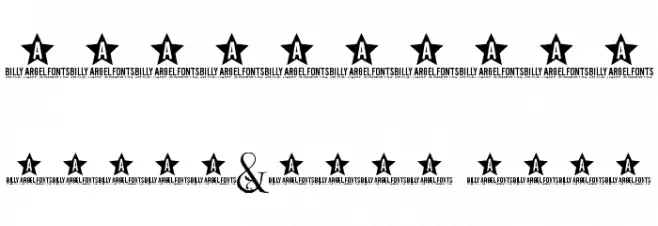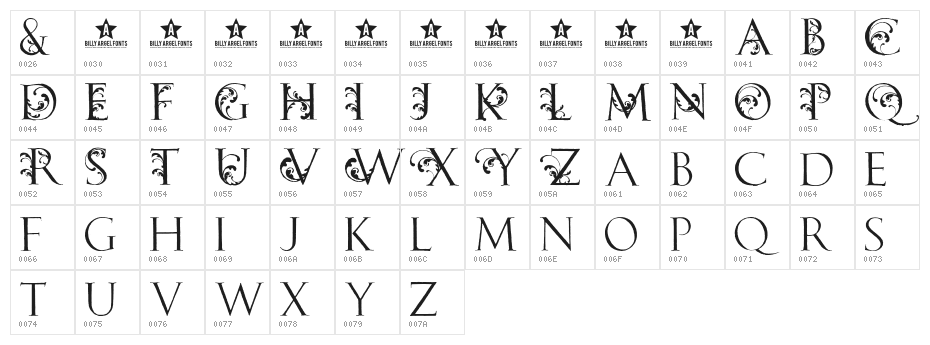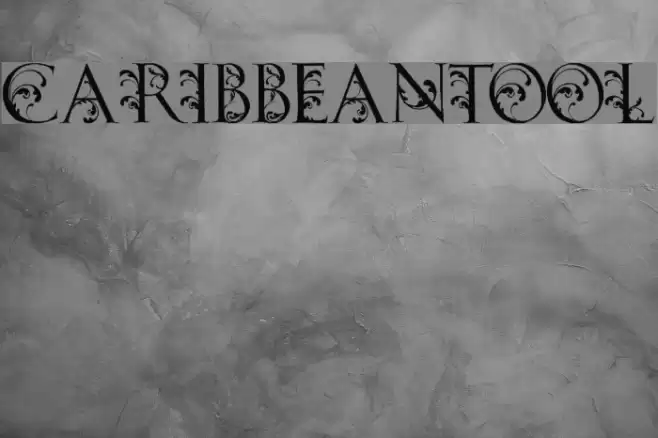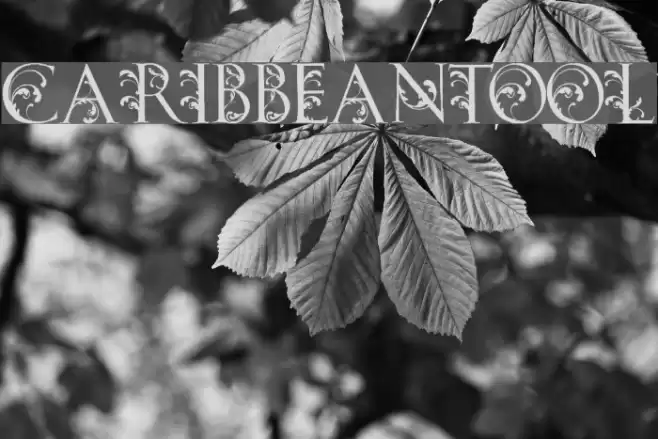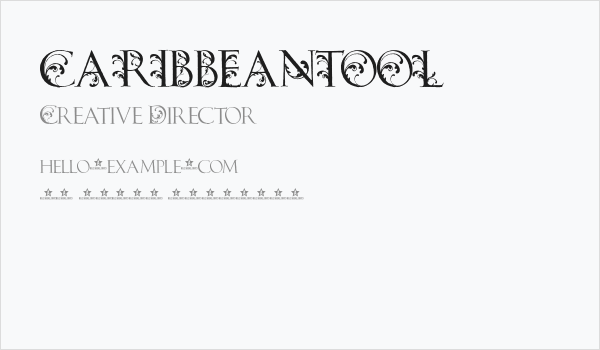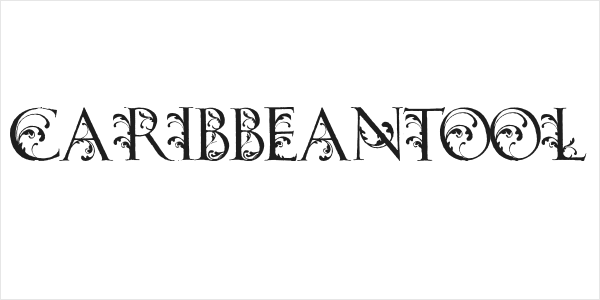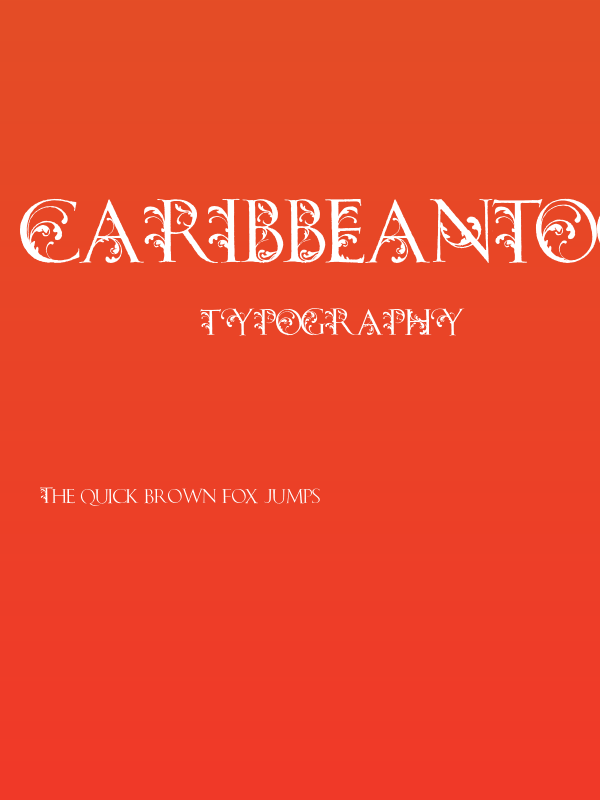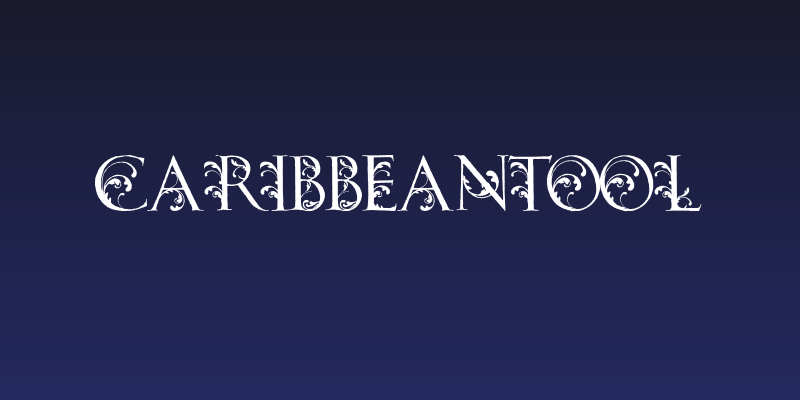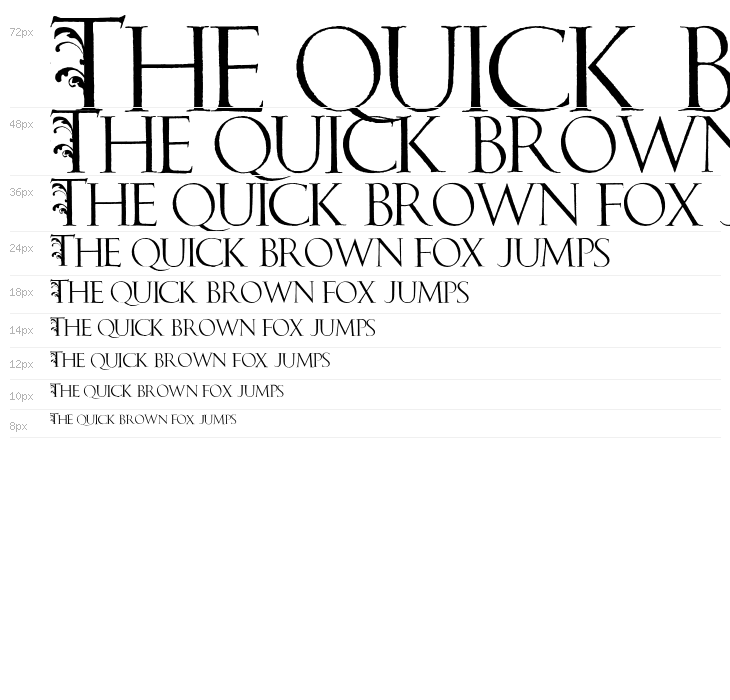
CARIBBEANTOOL Font
CARIBBEANTOOL Description
This font features an ornate and decorative style, with intricate flourishes and embellishments that give it a distinct, artistic flair. The uppercase letters are particularly elaborate, with swirling patterns that evoke a sense of elegance and sophistication. The lowercase letters maintain a more traditional serif appearance, providing a balance between decorative and readable. The font's overall design is reminiscent of vintage or classical styles, making it suitable for projects that require a touch of grandeur and formality. The special characters are also adorned with decorative elements, ensuring a cohesive look throughout the character set.
Overall StyleVintage
Proposed ProjectsIdeal for wedding invitations, luxury branding, book covers, and decorative posters.